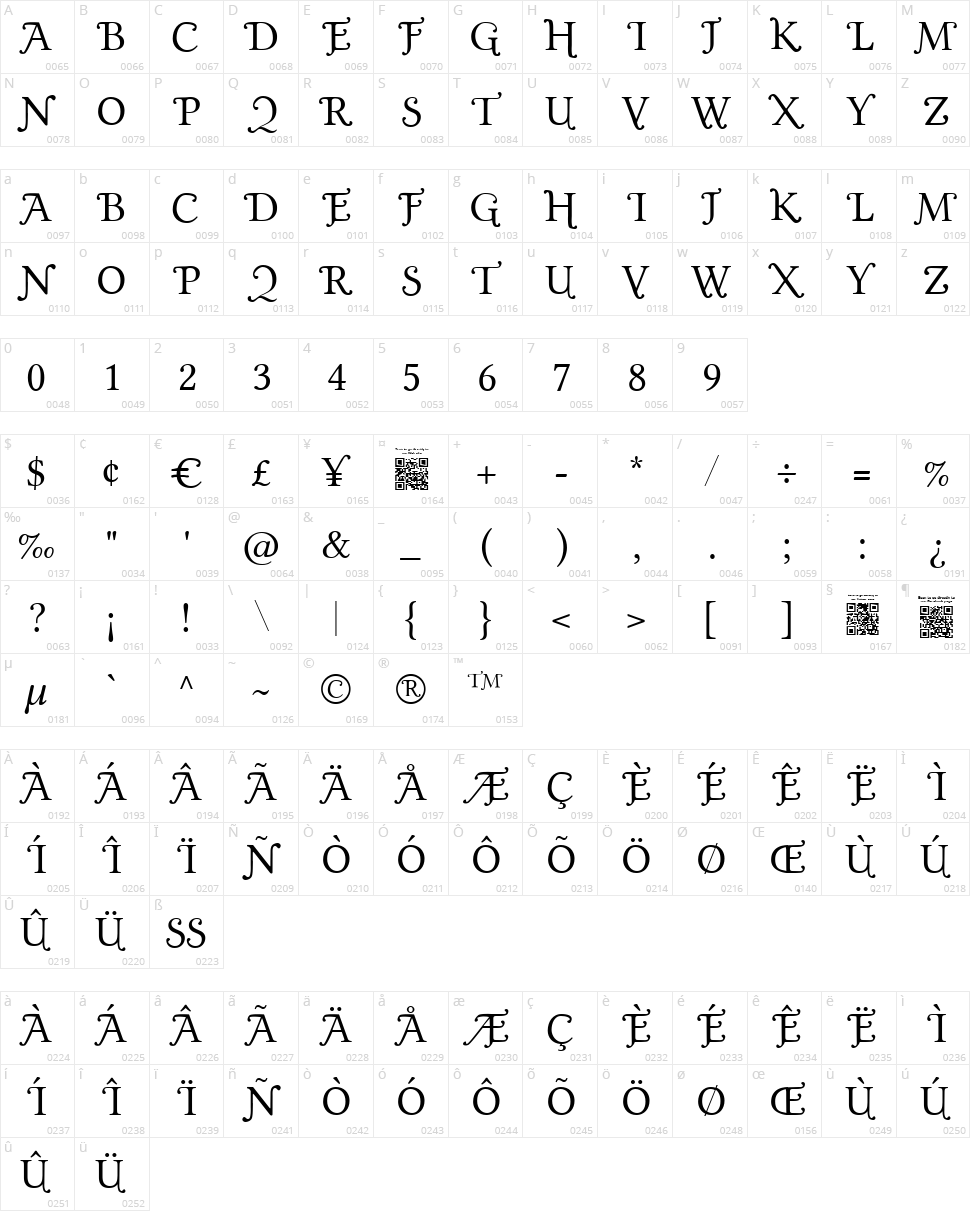
Gold Plated
Gold Plated Font
The Gold Plated font is a serif swash font based on Linux Libertine. Like all other JLH Fonts, this font is in the public domain and it comes with the Euro sign. Check out our other fonts, such as: